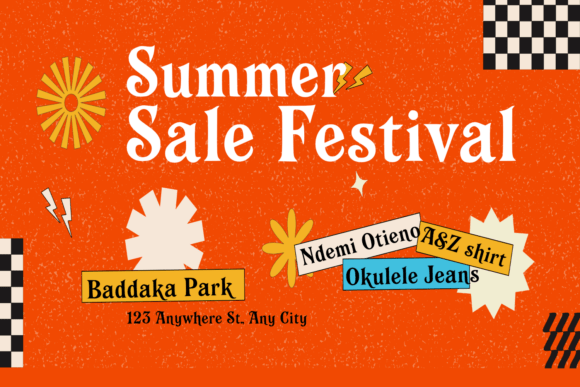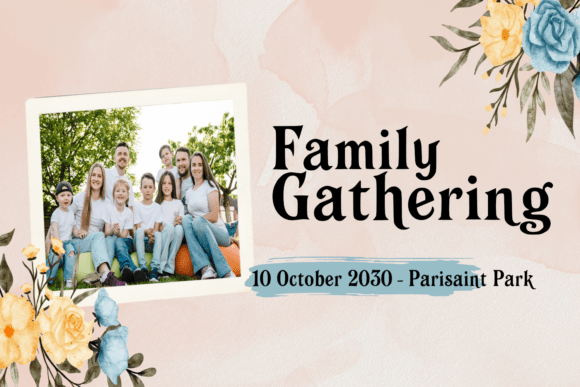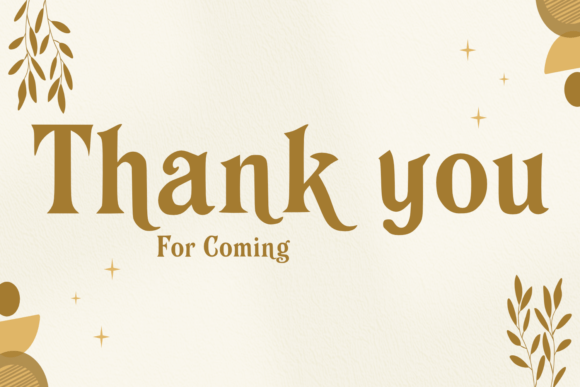
Unlocking the Power of Luxury Typography with Murisa Nathalia Font
Imagine you’re working on a high-end fashion campaign, and you need a font that exudes elegance and sophistication. You scroll through your design resources, and one name keeps popping up – Murisa Nathalia Font. This masterfully designed serif typeface has the power to elevate your creative project and leave a lasting impression on your audience.
As a designer, you know the importance of having a reliable and high-quality design resource at your fingertips. Murisa Nathalia Font delivers just that – a free download that’s perfect for luxury packaging, fashion campaigns, and high-end publications. With its transparent background and seamless support for Latin-based languages, this font is a game-changer for designers who demand both beauty and clarity.
Whether you’re working on a minimalist layout or an ornate composition, Murisa Nathalia Font harmonizes beautifully with any design style, making it an invaluable addition to your creative arsenal.
Key Features of Murisa Nathalia Font
- High-quality design: Murisa Nathalia Font offers a unique and elegant design, perfect for creative projects that require a touch of sophistication.
- Unique characteristics: This font features a unique blend of modern and vintage elements, making it an excellent choice for designers looking to add a touch of personality to their creative projects.
- Perfect for creative projects: Murisa Nathalia Font is ideal for use in creative projects such as logos, branding, packaging, and advertising, as well as in digital design projects like websites and social media graphics.
Honest Review: Murisa Nathalia Font
I recently came across the Murisa Nathalia Font, and I must say it’s a great addition to any designer’s toolkit. The high-quality design makes it perfect for a creative project that requires a touch of elegance.
- ✨ The font’s transparent background allows for seamless integration with any design, making it a versatile design resource.
- ✨ The high-quality design ensures that the text will always look sharp and clear, even at larger font sizes.
- ⚠️ The font may not be suitable for designs that require a bold, eye-catching font, as it can come across as a bit subtle.
- ⚠️ The font only comes in a limited number of styles, which may not be ideal for designers who like to have a wide range of options.
Overall, I would say that the Murisa Nathalia Font is a great design resource that can add a touch of sophistication to any creative project. While it may not be suitable for every design, it’s definitely worth checking out if you’re looking for a high-quality font with a transparent background.
Murisa Nathalia Font
To get the most out of the Murisa Nathalia Font, use it in conjunction with other design elements, such as images and graphics, to create a visually appealing design. You can also experiment with different font sizes and colors to add depth and interest to your design.
The Murisa Nathalia Font is perfect for creative projects, such as designing a logo, creating a social media post, or making a presentation. Its high-quality design and transparent background make it ideal for use in a variety of design applications.